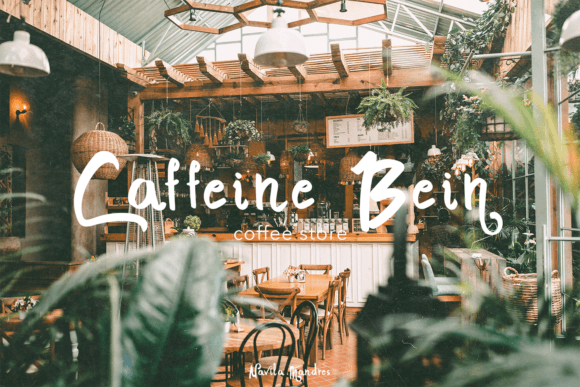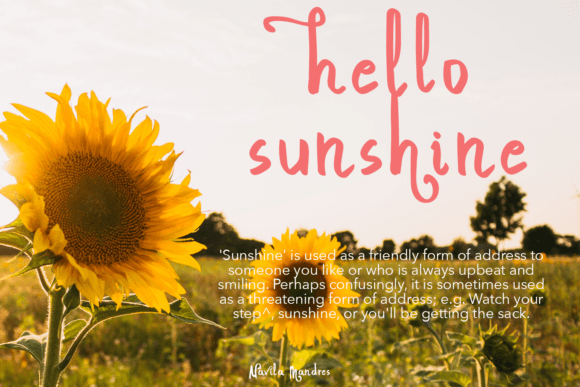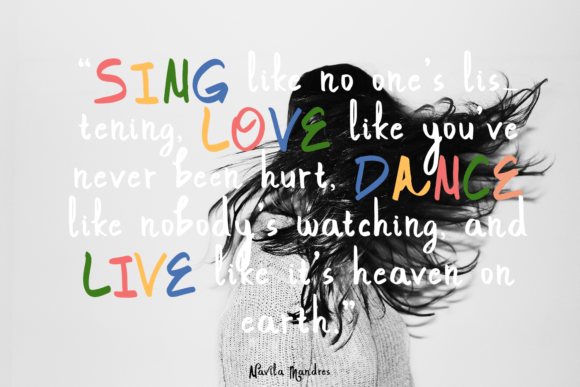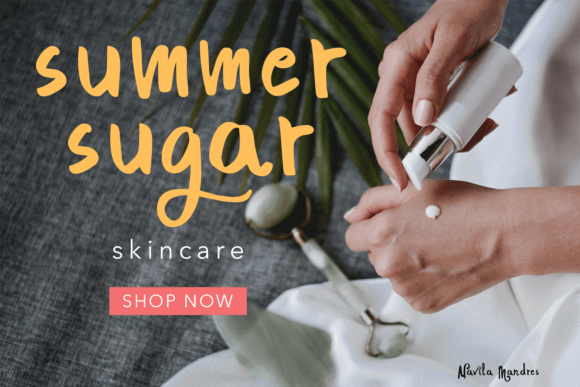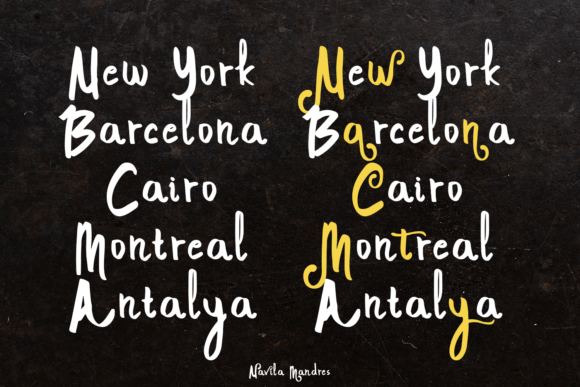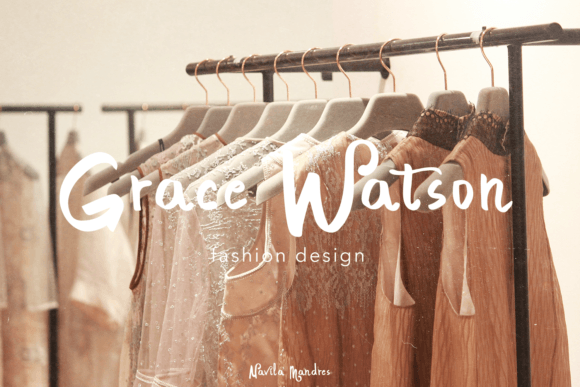
Introduction to Navila Mandres Font Font
Fonts play a crucial role in design, and the Navila Mandres Font font is a typeface that brings both character and versatility to any project. Whether you’re working on a branding project, a website, or a print design, the Navila Mandres Font font offers a unique style that can elevate your work.
Introducing Navila Mandres is a realistic hand-drawn font that come with alternative ligature and will be perfect for the book, title branding, product packaging, invitation, quotes, label, posters, logo, etc.
Introducing Navila Mandres is a realistic hand-drawn font that come with alternative ligature and will be perfect for the book, title branding, product packaging, invitation, quotes, label, posters, l
Key Features of Navila Mandres Font Font
Why Choose Navila Mandres Font Font?
The Navila Mandres Font font is more than just a typeface – it’s a design tool that helps you communicate your message with style and clarity. Its unique character set and versatile design make it suitable for a wide range of applications, from elegant invitations to bold headlines.
With its carefully crafted letterforms and balanced proportions, the Navila Mandres Font font ensures readability and visual appeal across all mediums.
What makes Navila Mandres Font font special?
The Navila Mandres Font font stands out with its unique design, exceptional readability, and versatility across various design applications.